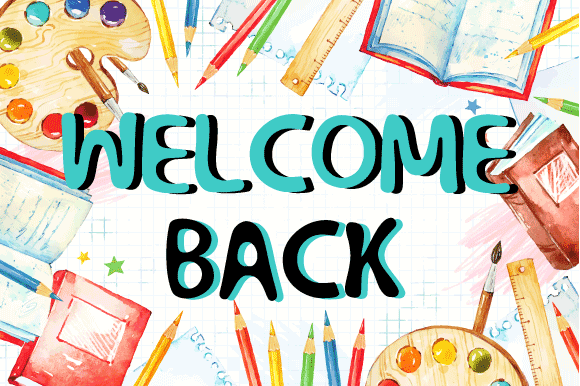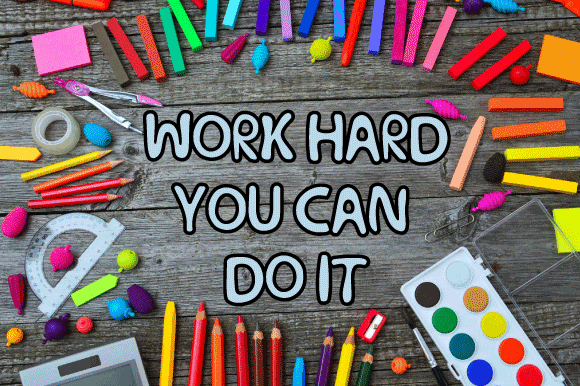
Getting Creative for the New School Year
As the summer comes to a close, many of us are itching to get back into our creative zones. Whether you’re a student looking to add some personality to your assignments or a teacher wanting to make lesson plans more engaging, it’s that time of year when creativity flows freely. For me, it’s the moment when I dig out my favorite pens, colored pencils, and, of course, my go-to fonts.
Speaking of fonts, have you heard about the Back to School Font? This charming, handwritten font is the perfect addition to any creative project. Its playful characters seem to dance along the baseline, making even the most mundane tasks feel fun and exciting. Whether you’re designing posters, flyers, or social media graphics, the Back to School Font is sure to bring a smile to your face and make your work stand out.
Key Features of “Back to School Font”
- Unique Characteristics: This font includes a set of back-to-school themed icons, such as apples, pencils, and books, which can be used in conjunction with the font to create a cohesive design
- Font Style: The font comes in two styles, Regular and Bold, to provide flexibility for different design needs
Designer Review: “Back to School Font”
Overall, I’d say that “Back to School Font” is a fun and playful font that’s perfect for summer or educational projects. ✨ Here are some things that I think work well:
- Fun and casual feel: The font’s rounded edges and gentle curves give it a laid-back vibe that’s great for projects that need a bit of whimsy.
- Variety of styles: The font comes with multiple styles, including bold, italic, and a special “stencil” version that adds some extra visual interest.
- Easy to read: Despite its playful feel, the font is still easy to read, even in smaller sizes.
Of course, like any font, “Back to School Font” has its limitations: ⚠️ Here are a few things to consider:
- Limited versatility: While the font is great for summer or educational projects, it may not be the best choice for more formal or professional projects.
- Not suitable for large text: The font’s playful feel works best in smaller sizes, and it can look a bit overwhelming when used for larger text.
- Not a lot of depth: The font’s design is relatively simple, which can make it look a bit flat or one-dimensional when used in complex compositions.
Overall, I think “Back to School Font” is a fun and useful addition to any designer’s toolkit. It’s perfect for projects that need a bit of personality and whimsy, but may not be the best choice for more formal or professional work.
Getting the Most Out of the Font
To get the most out of the “Back to School Font,” use it in combination with bold and italic styles to create emphasis and visual interest. You can also use it in conjunction with other fonts to create a unique and eye-catching design.
The “Back to School Font” is ideal for use in educational materials, such as worksheets, lesson plans, and report cards. It’s also great for creating invitations, flyers, and other promotional materials for back to school events.